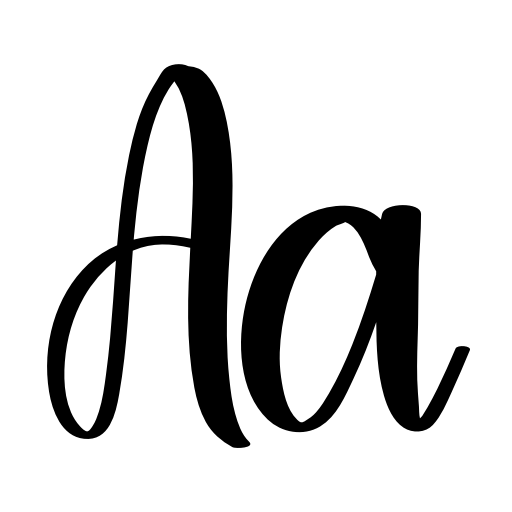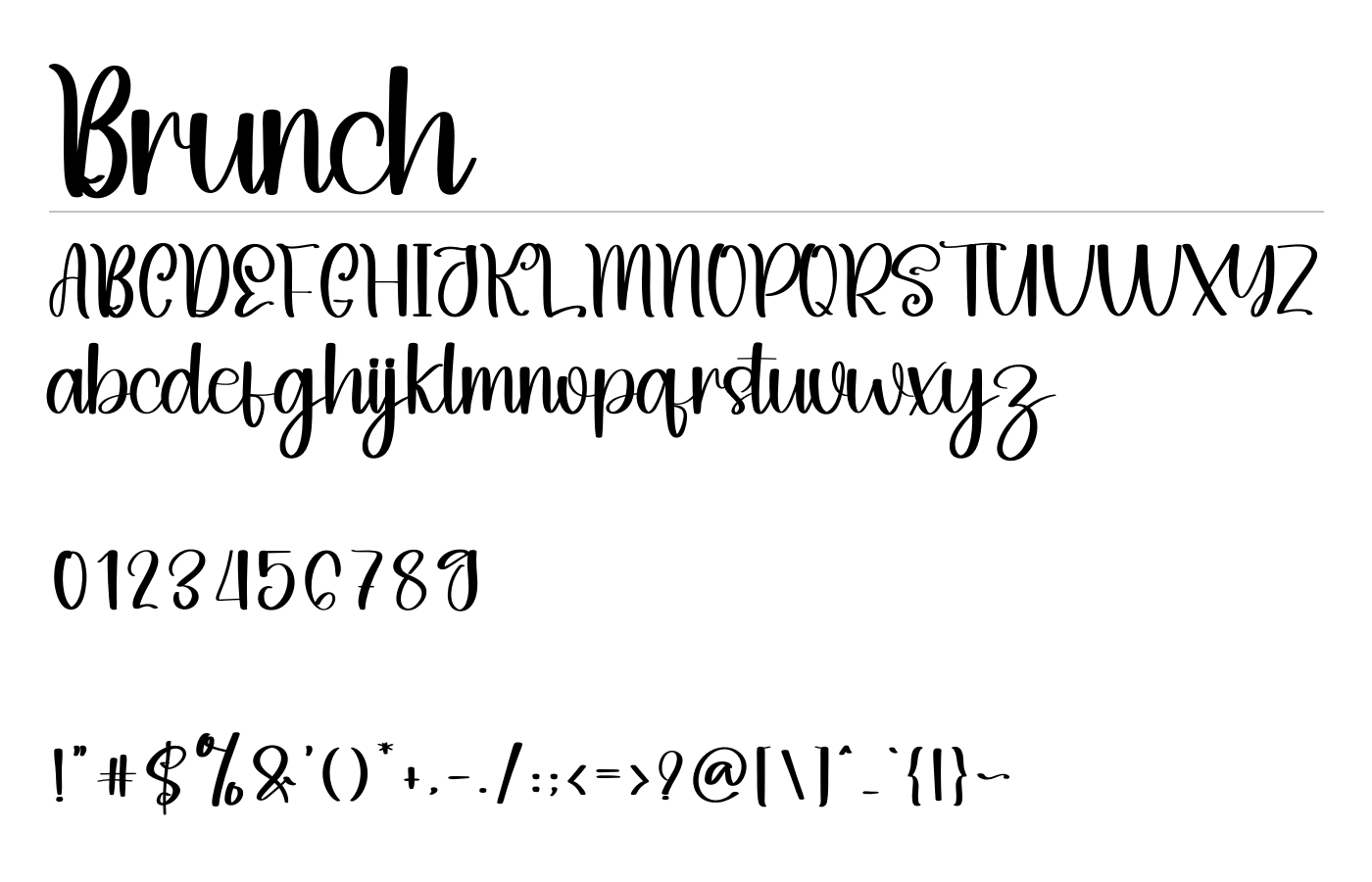
Brunch Font is a playful, modern script with a casual, handwritten feel that brings warmth and personality to any design. Its smooth, flowing strokes and slightly uneven lines make it perfect for creating inviting logos, stylish invitations, and friendly branding materials. This font works best where a personal, approachable touch is desired, lending charm and creativity to both print and digital projects.
Brunch Font